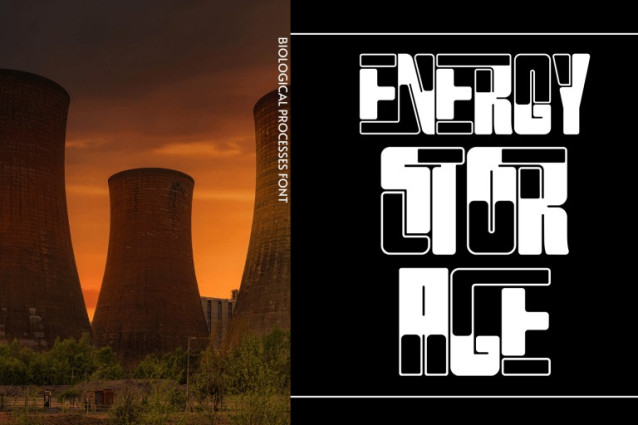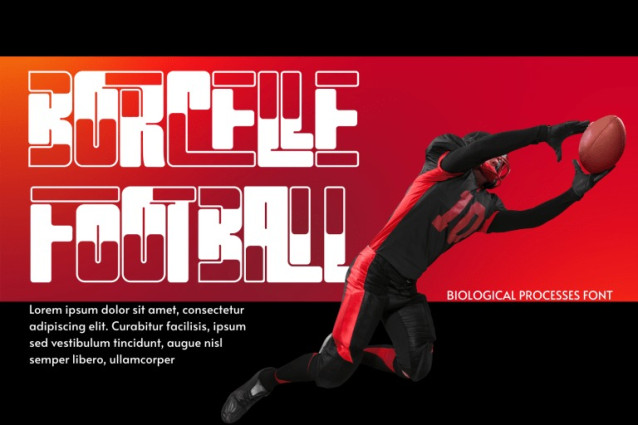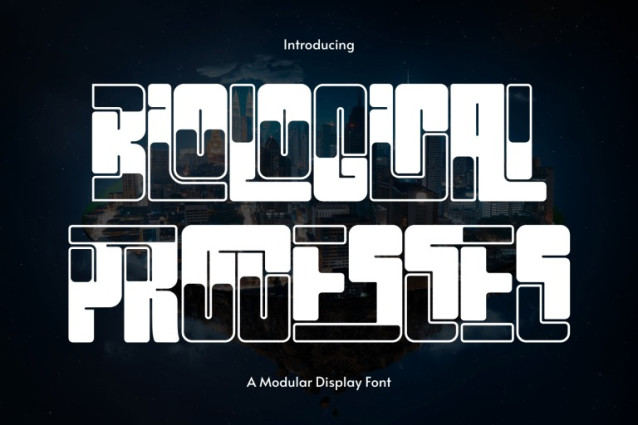
BIOLOGICAL PROCESSES FONT
BIOLOGICAL PROCESSES – SCI-FI FONT is a futuristic modular display sans-serif typeface inspired by sci-fi aesthetics and modern techno design. Built from bold geometric shapes with rounded corners and layered line details, this typeface delivers a powerful and high-tech visual identity. Its structured forms and distinctive modular construction create a dynamic rhythm that instantly evokes a sense of innovation and digital energy. BIOLOGICAL PROCESSES is perfect for gaming titles, technology branding, sci-fi posters, cyberpunk visuals, and futuristic logo design.
🔤Features:
Uppercase & Lowercase Letters
Around 100 Special Ligatures & Alternates
Accented Characters for multilingual support
🔤About 100 ligatures combined with Stylistic Alternates Font:
AC AD AL AN AR AS AT AU AV BE CA CE CH CO CT DE DI EA EC ED EE EL EM EN EP ER ES ET FE FO FR GE HA HE HI HO IE IC IL IN IO IR IS IT JU KE LA LE LI LL LO LY MA ME MI NC ND NE NG NO NT NS OC OF OM ON OO OP OR OT OU OW PA PR RA RD RE RI RO RS RT SE SH SI SO SS ST TA TE TH TI TO TR TT UM UN UR VE WI WO